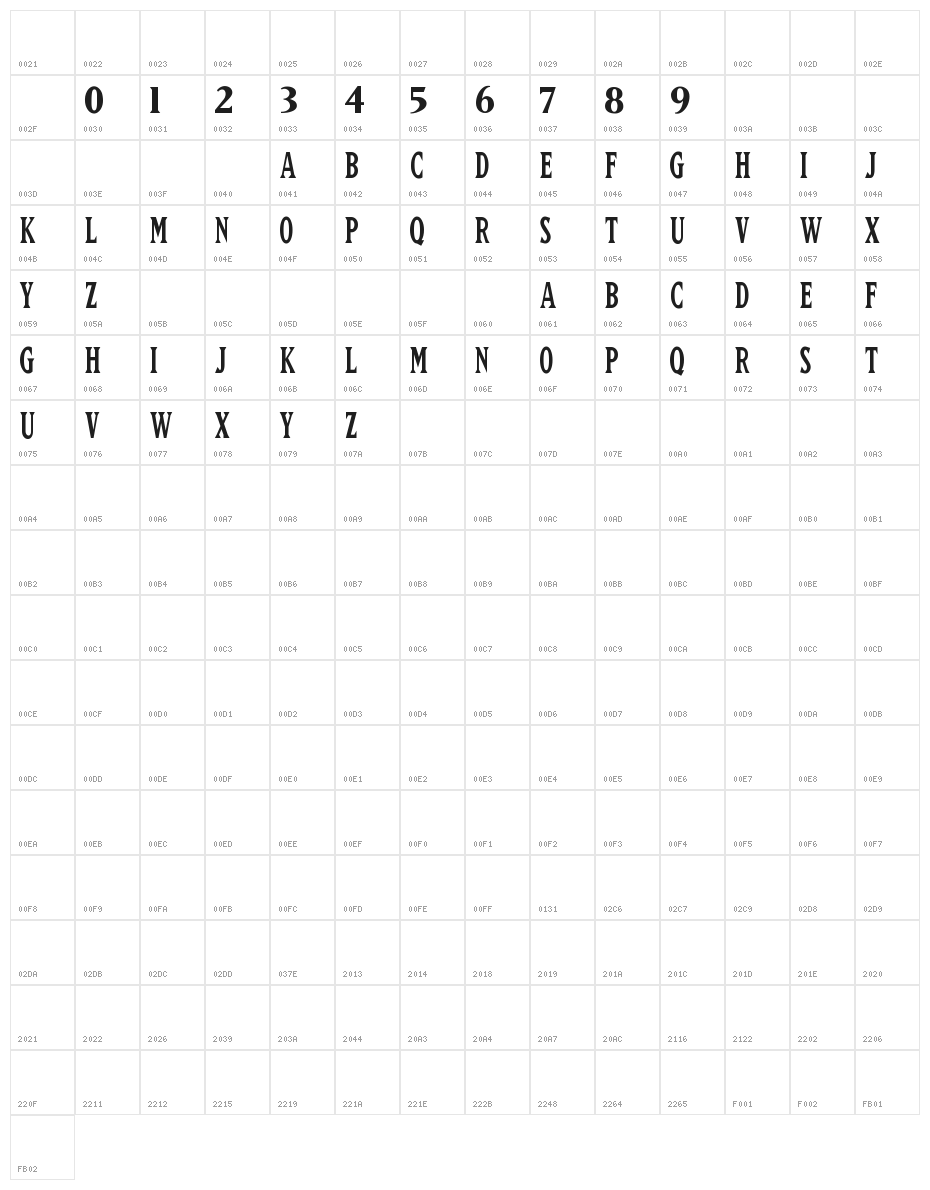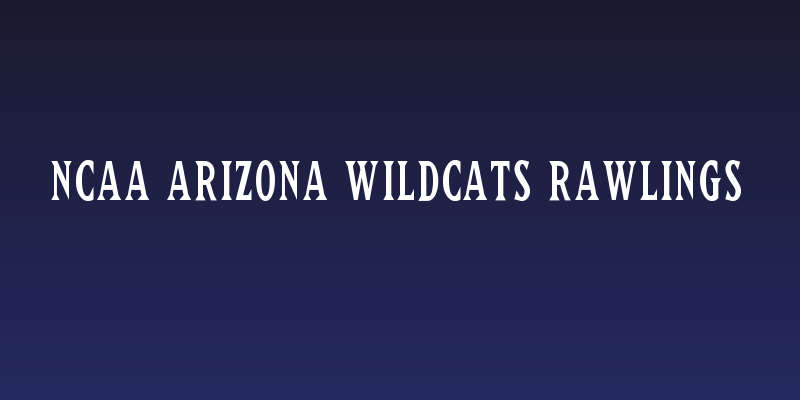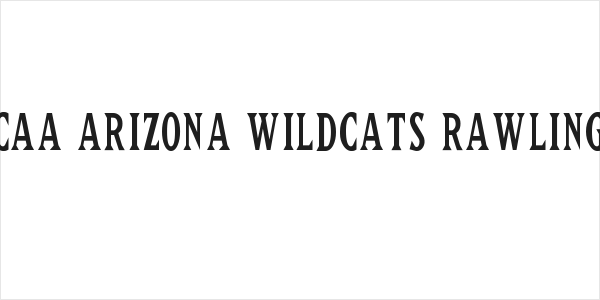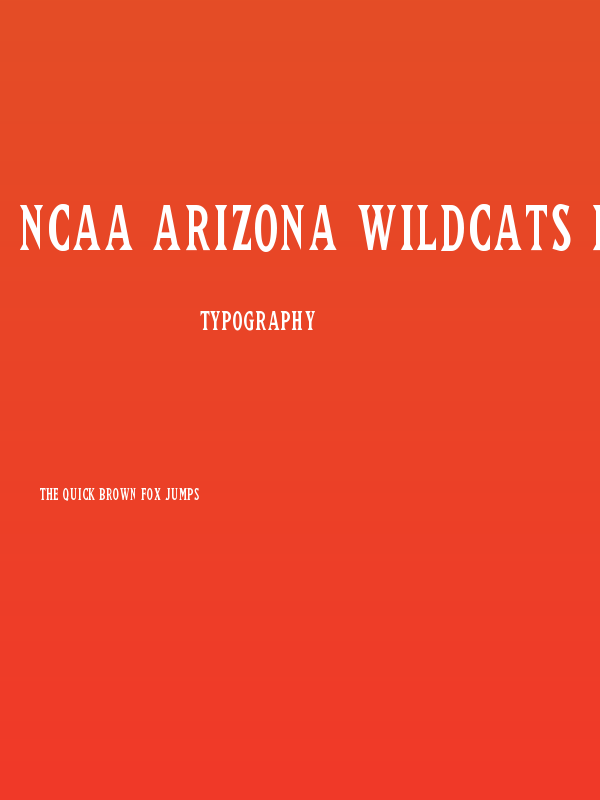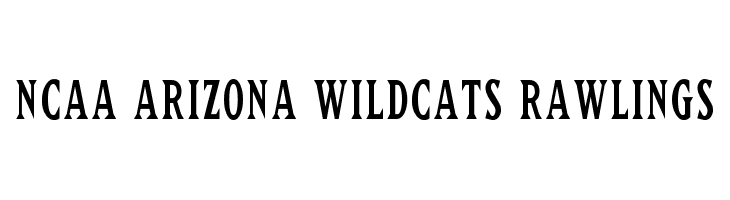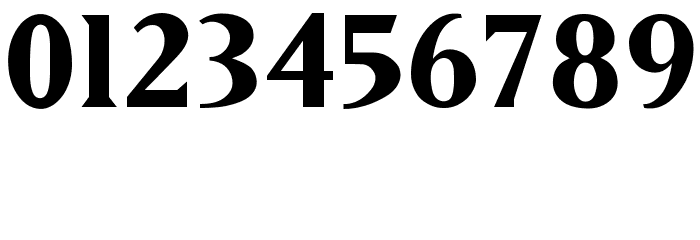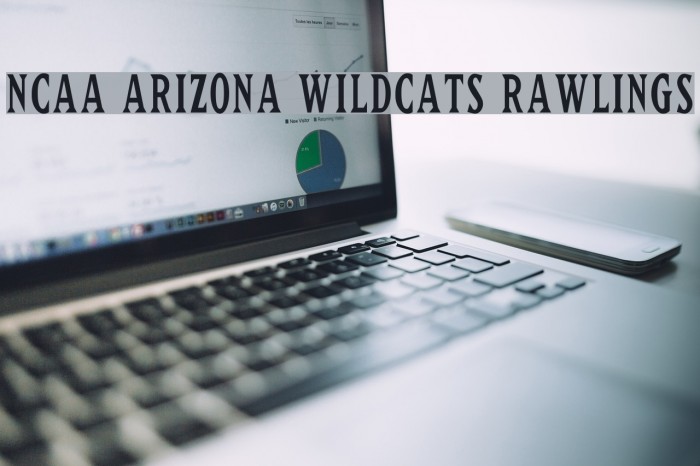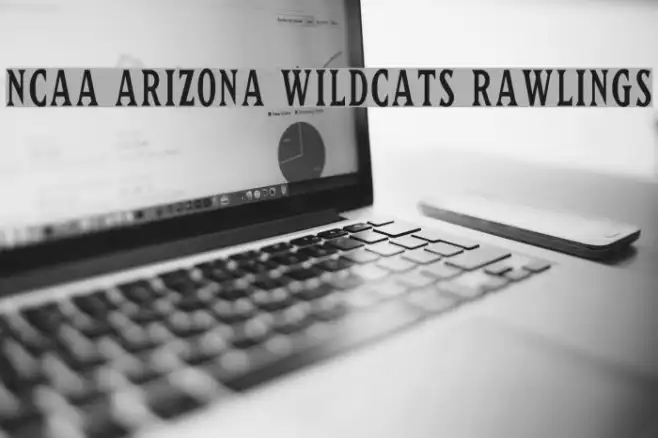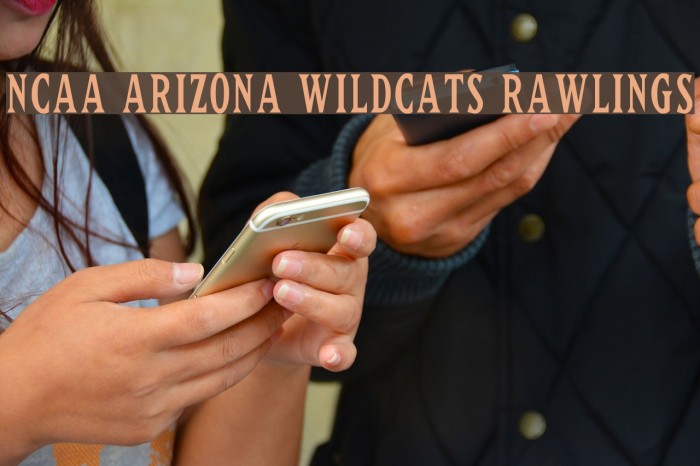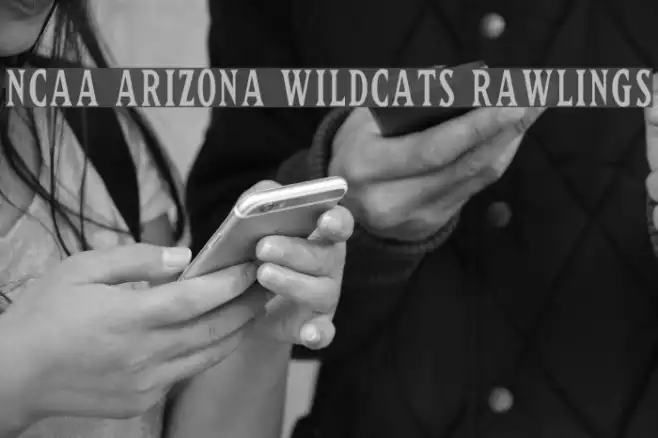
NCAA Arizona Wildcats Rawlings Font
NCAA Arizona Wildcats Rawlings Description
This font features a bold and commanding presence, characterized by its strong serif design. The letters are well-defined with a slight flare at the ends, giving them a classic yet robust appearance. The uppercase letters are particularly striking, with a consistent height and width that convey a sense of stability and authority. The numerals are equally bold, maintaining the same weight and style as the letters, ensuring uniformity across the typeface. This font's design is both timeless and versatile, making it suitable for a variety of applications where a strong, traditional look is desired.
| Overall Style | Classic |
| Use Case | Logos, Headlines |
| Proposed Projects | Ideal for sports branding, university logos, headlines, and any project requiring a strong, traditional aesthetic. |